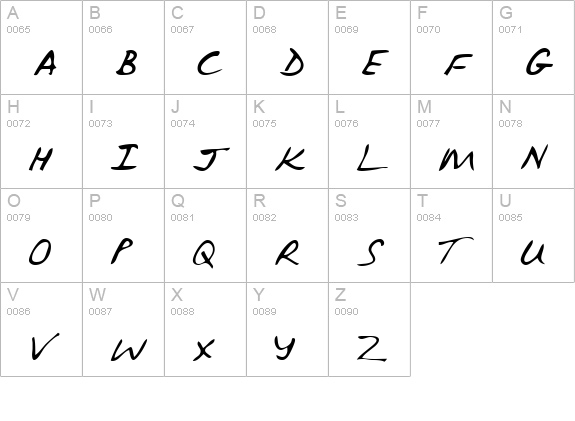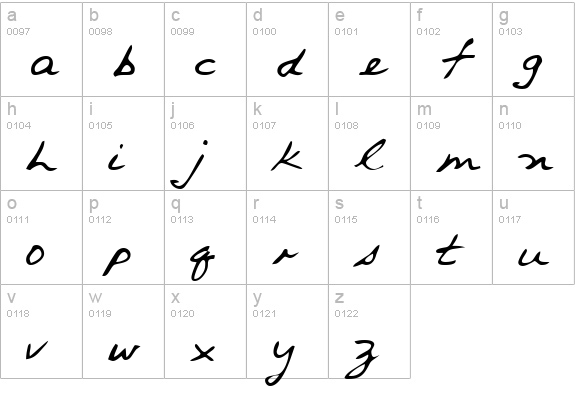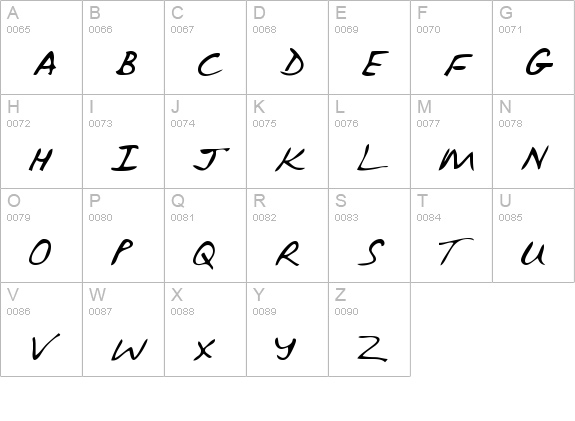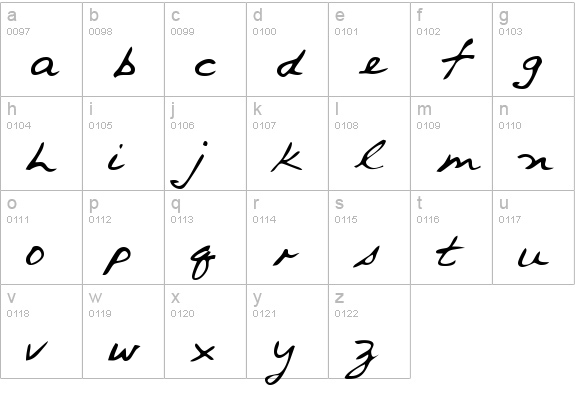
EddiesHand Regular Font Details
EddiesHand Regular is the standard, neutral variant in the EddiesHand typeface family \xE2\x80\x94 well suited to general body text, paragraphs, and standard typographic work.
EddiesHand Regular font is a charming and playful typeface that brings a touch of whimsy to any design project. With its uneven and slightly messy strokes, this font captures the essence of a handwritten style, adding a personal and organic feel to your text. Perfect for a variety of creative endeavors, EddiesHand Regular font is ideal for greeting cards, invitations, posters, and branding materials. Its unique and distinctive appearance will grab attention and make your message stand out from the crowd. What makes EddiesHand Regular font even more appealing is that it is freely available to download at FontsMarket.com. This means that you can easily access and use this delightful typeface without any cost. Whether you are a professional designer looking for a unique font or an individual wanting to add a touch of creativity to personal projects, EddiesHand Regular font offers endless possibilities. Don't miss out on this opportunity to enhance your designs with a free and charming typeface. Download EddiesHand Regular font today from FontsMarket.com and let your imagination run wild.